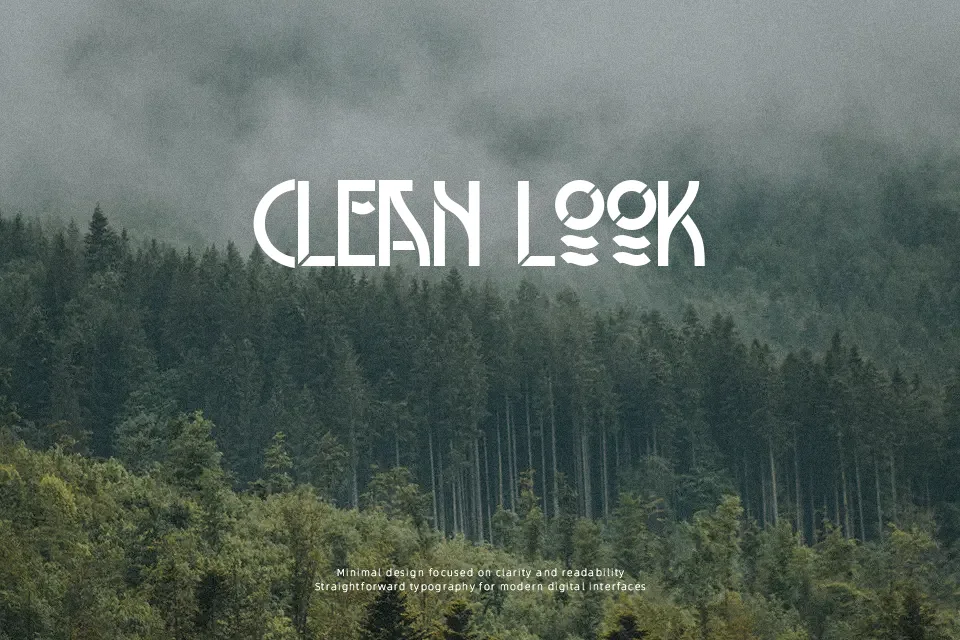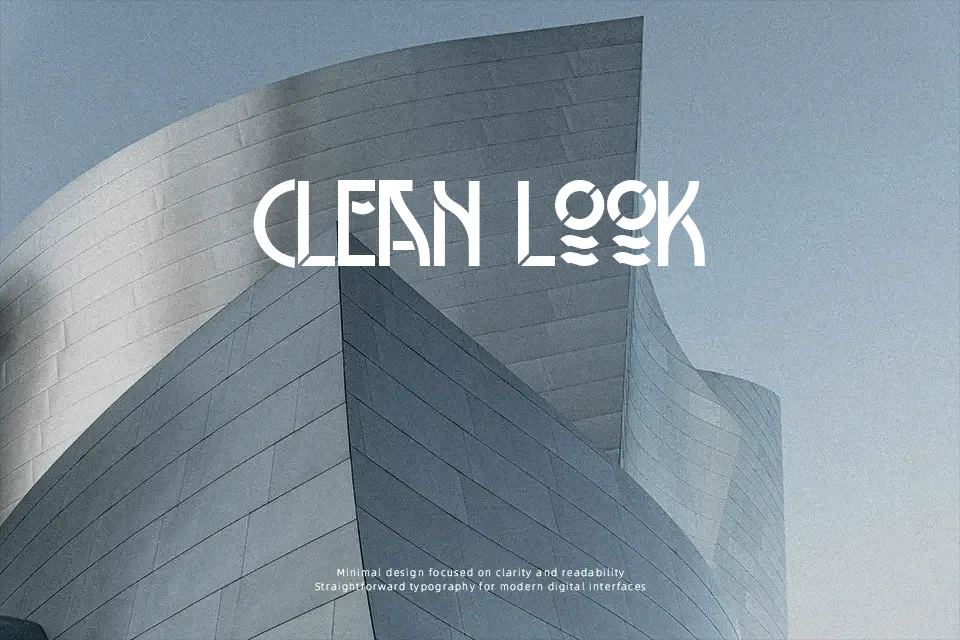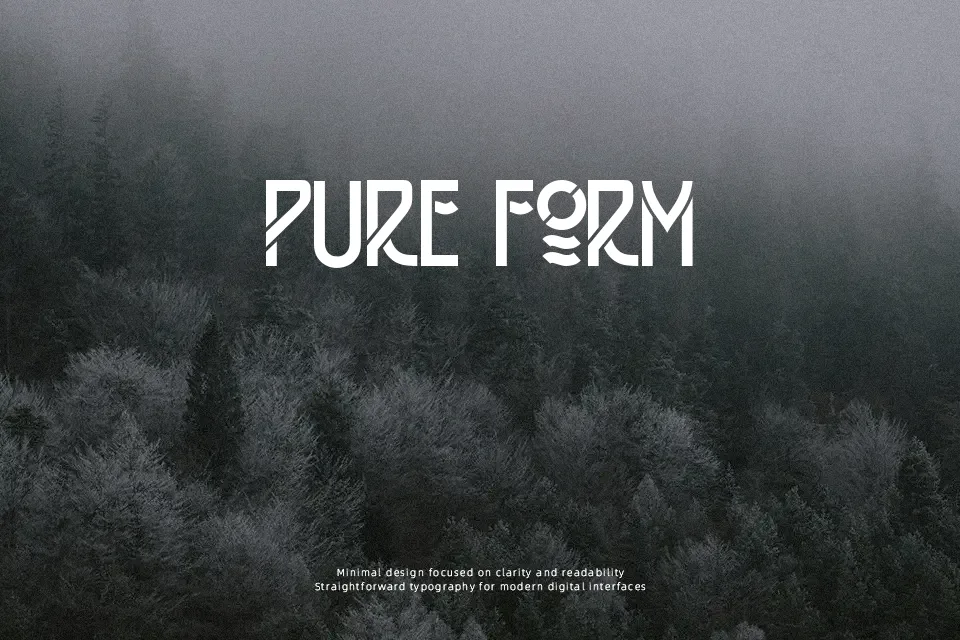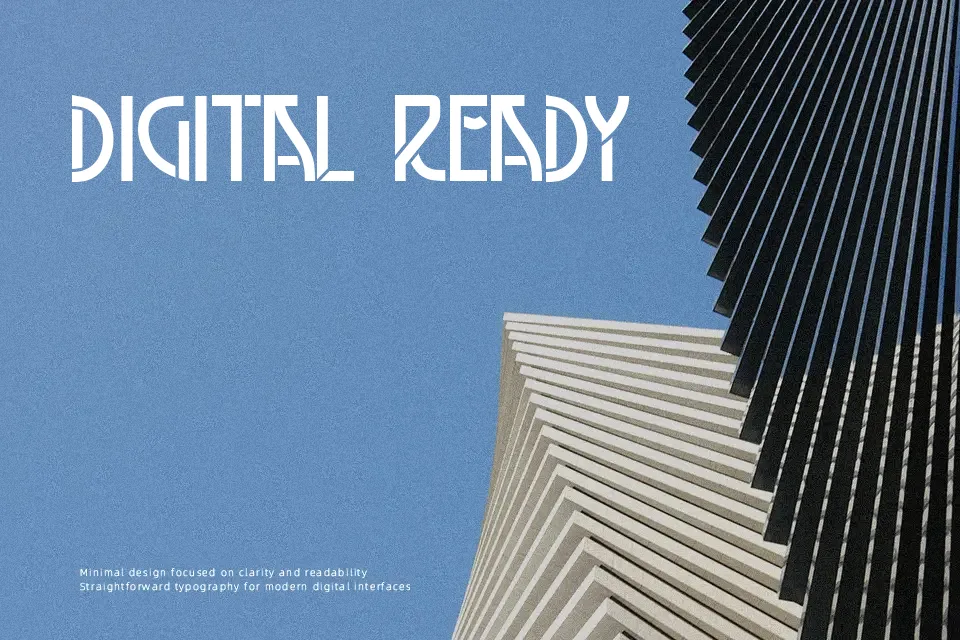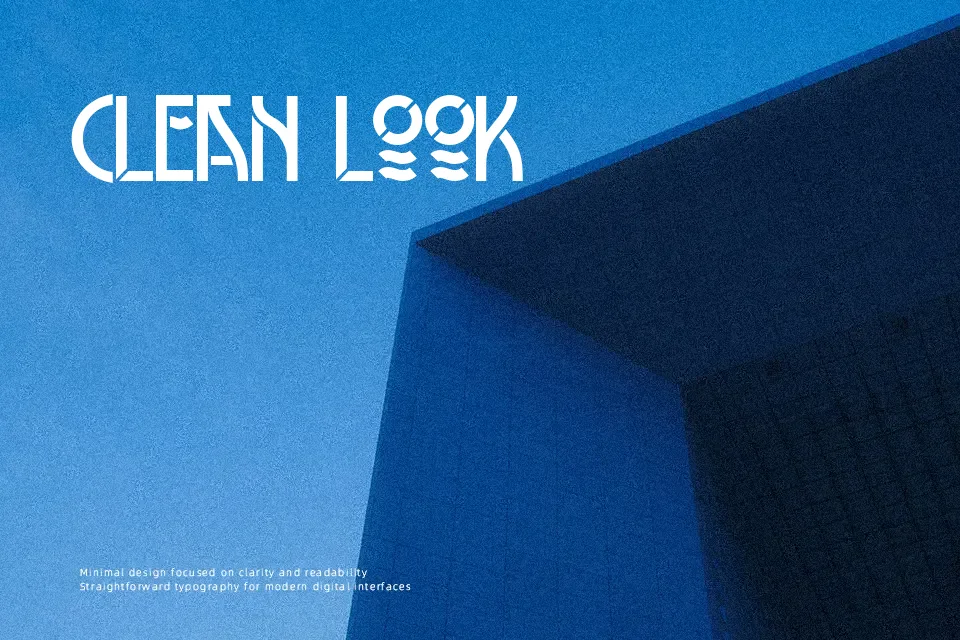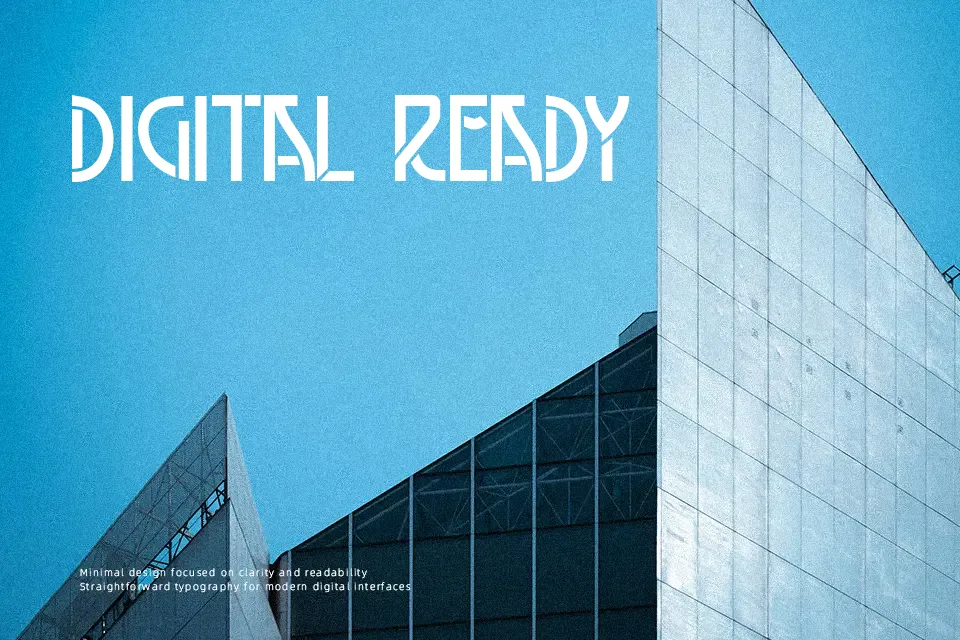
Belladona Stencil Font
Designed by Tano Veron
There’s a tension in Belladona Stencil that sets it apart from straightforward military-style stencils — the letterforms carry a faint Art Nouveau echo, with ornate curves undercut by hard stencil breaks and aggressive negative space. Strokes are thick and declarative, spacing is tight but intentional, and the overall structure reads as retro-decorative rather than utilitarian. It works well for hip hop event posters, street-art-inspired album covers, skateboard brand headers, and urban fashion labels. Where it fails you: anything requiring legibility at small sizes, dense body copy, or corporate-facing materials where restraint is expected. The font has personality to spare, but that becomes a liability the moment the context demands subtlety. Not a workhorse — use it as a statement piece or not at all.
– Hip hop and street art event posters
– Urban fashion brand headers and labels
– Music album cover titles
– Skateboard or action sports packaging
– Body text or long-form reading
– Corporate identity systems or professional reports
– Formal invitations or editorial layouts requiring elegance
– Small-size applications where stencil cuts reduce legibility